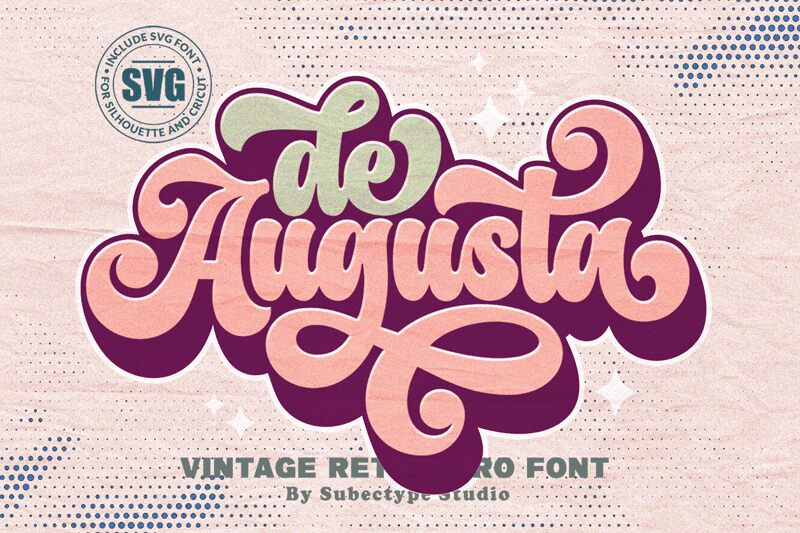
The Augusta, created by Subectype & Orenari, is a groovy and extra-bold display font that takes inspiration from retro typography and lettering in the 70’s and 80’s.
Its vintage appeal makes it perfect for a variety of projects such as badges, logos, t-shirts, posters, branding, packaging, signage, and book covers. The Augusta adds a touch of nostalgia and boldness to any design or artwork.
With its unique style and versatility, this font is an excellent choice for those looking to create eye-catching retro designs. Let your creativity run wild with The Augusta!